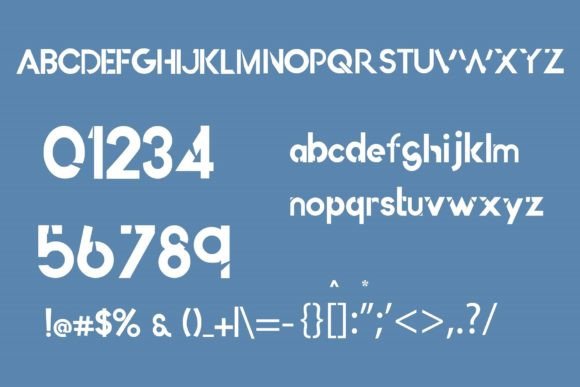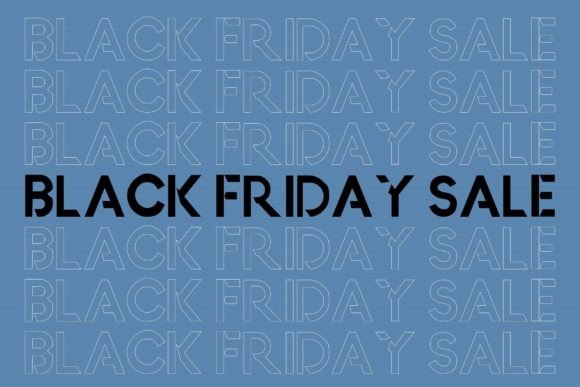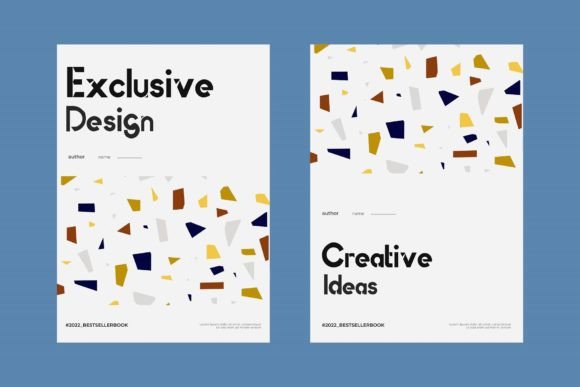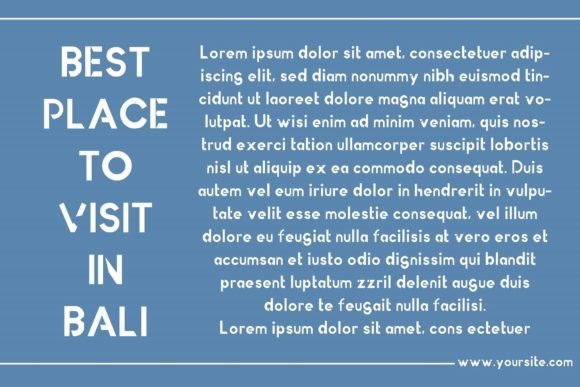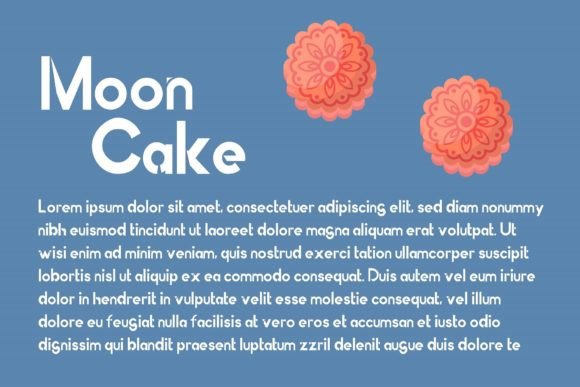
Unleash Your Creativity with Agem Font
You know that moment when a spark of inspiration strikes, and you can’t wait to bring your idea to life? For designers, this feeling is a daily occurrence, and it’s what drives us to create something truly special. Whether it’s a bold logo, a catchy slogan, or a visually appealing book cover, the right font can make all the difference.
Enter Agem Font, a fun and simple hand-lettered sans-serif font that’s perfect for a wide range of creative projects. From party invitations to product packaging, Agem Font is a versatile tool that can help you add a personal touch to your designs. Its clean and modern aesthetic makes it a valuable asset for designers looking to elevate their work.
Agem Font Key Features
- Font Family: Agem Font is a sans-serif font family, designed for use in digital and print media.
- Character Set: Supports a wide range of languages, including Latin, Cyrillic, and Greek alphabets.
- Unique Characteristics: Agem Font features a clean and modern design, with a subtle rounded edge and a high x-height for improved readability.
Agem Font Review
As a designer, I was excited to dive into the Agem Font and see what it had to offer. Here’s my honest review.
- The Agem Font has a unique, modern aesthetic that’s perfect for a wide range of applications, from digital products to print materials.
- The font’s clean lines and geometric shapes make it easy to read, even at smaller font sizes.
- The Agem Font comes in a variety of weights and styles, giving designers plenty of options to choose from.
- The font is highly customizable, with features like ligatures and contextual alternates.
- The Agem Font may not be suitable for projects that require a more traditional or serif font style.
- The font’s bold and italic styles may not be as robust as some other fonts in the same category.
- The Agem Font may require additional formatting to achieve the desired look and feel.
The Agem Font is a solid choice for designers looking for a modern, geometric font that’s easy to read and customize. While it may have some limitations, the Agem Font is a versatile and stylish option that’s worth considering for your next project.
Tips for Getting the Most Out of Agem Font
Agem Font is a versatile font that can be used in a variety of contexts. Here are some tips for getting the most out of it:
- Use it for titles and headings to add a touch of elegance.
- Pair it with other fonts to create a unique and eye-catching design.
Agem Font is perfect for:
- Business cards and marketing materials.
- Blog posts and articles.
Alternatives to Agem Font for Designers
Open Sans is a modern sans-serif font designed by Steve Matteson. It’s suitable for body text and is widely used in digital products. When to use: Use Open Sans for digital products, such as websites and mobile apps, where a clean and modern look is desired.
Comparison: Open Sans is more modern and clean compared to Agem Font, making it a great choice for digital products. However, Agem Font has a more unique and quirky feel to it.
Lato is a sans-serif font designed by Łukasz Dziedzic. It’s a highly legible font that works well for body text. When to use: Use Lato for projects where a clean and professional look is desired, such as business cards and brochures.
Comparison: Lato is more legible and professional compared to Agem Font, making it a great choice for print materials. However, Agem Font has a more unique and quirky feel to it.
Montserat is a sans-serif font designed by Julieta Ulanovsky. It’s a geometric font that works well for headlines and titles. When to use: Use Montserrat for projects where a modern and urban look is desired, such as fashion and lifestyle magazines.
For optimal readability, we recommend using the Agem Font at a minimum font size of 12 points and a line height of at least 1.2 times the font size. This will ensure that the text is clear and easy to read, especially in digital environments.
Is the Agem Font optimized for retina displays and high-resolution screens?
Yes, the Agem Font is carefully crafted to ensure optimal legibility on high-resolution screens. It is designed with advanced hinting and vector-based rendering, which makes it look crisp and clear on retina displays and other high-resolution devices.